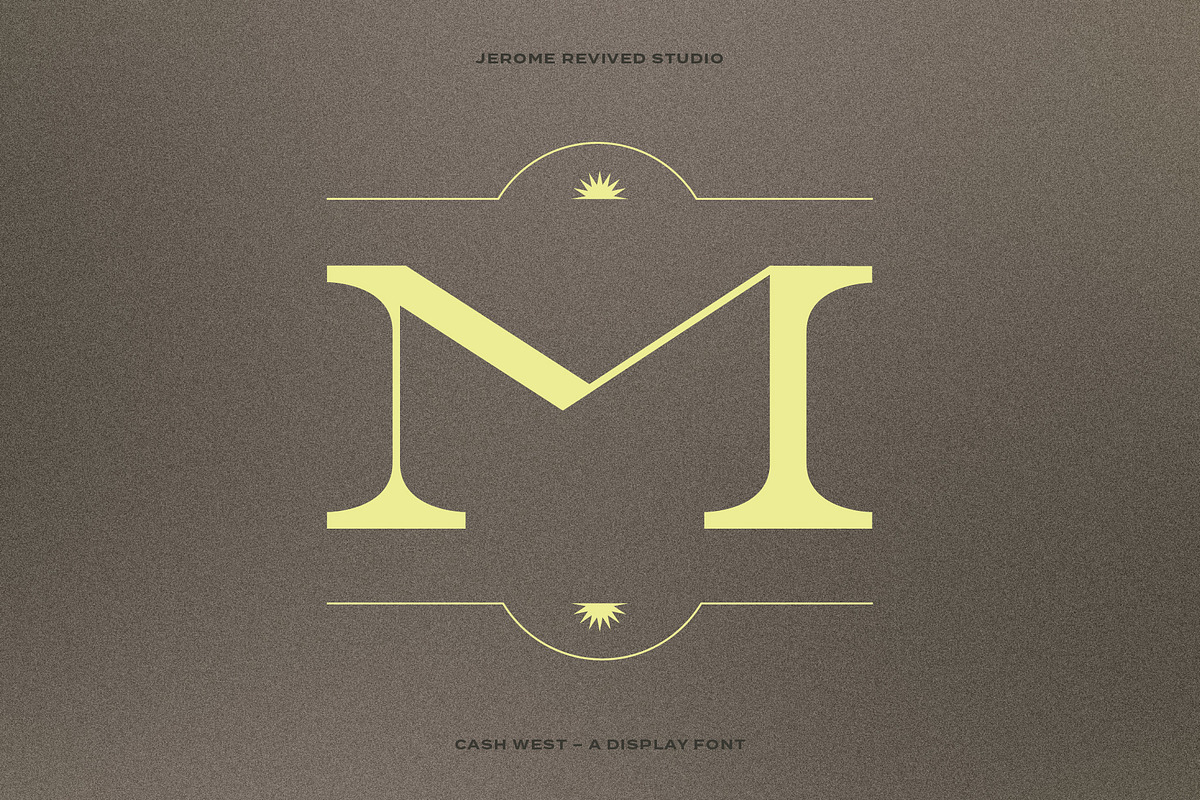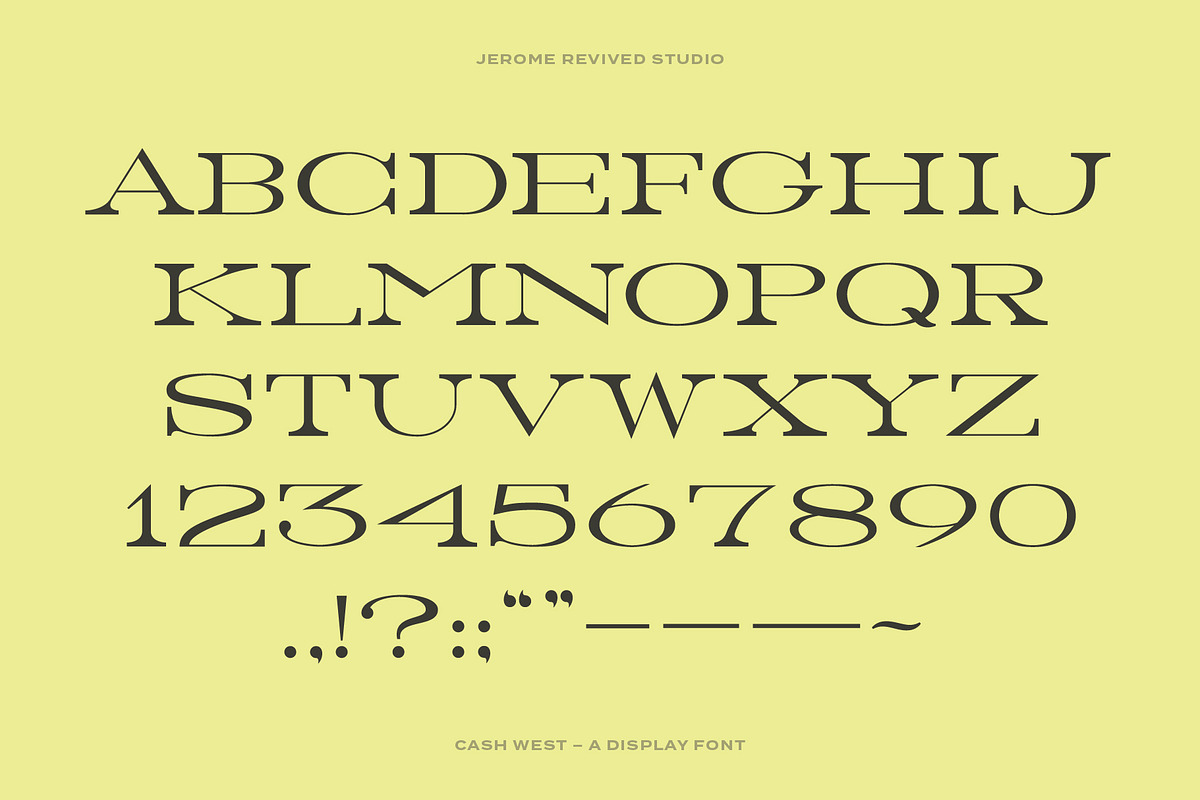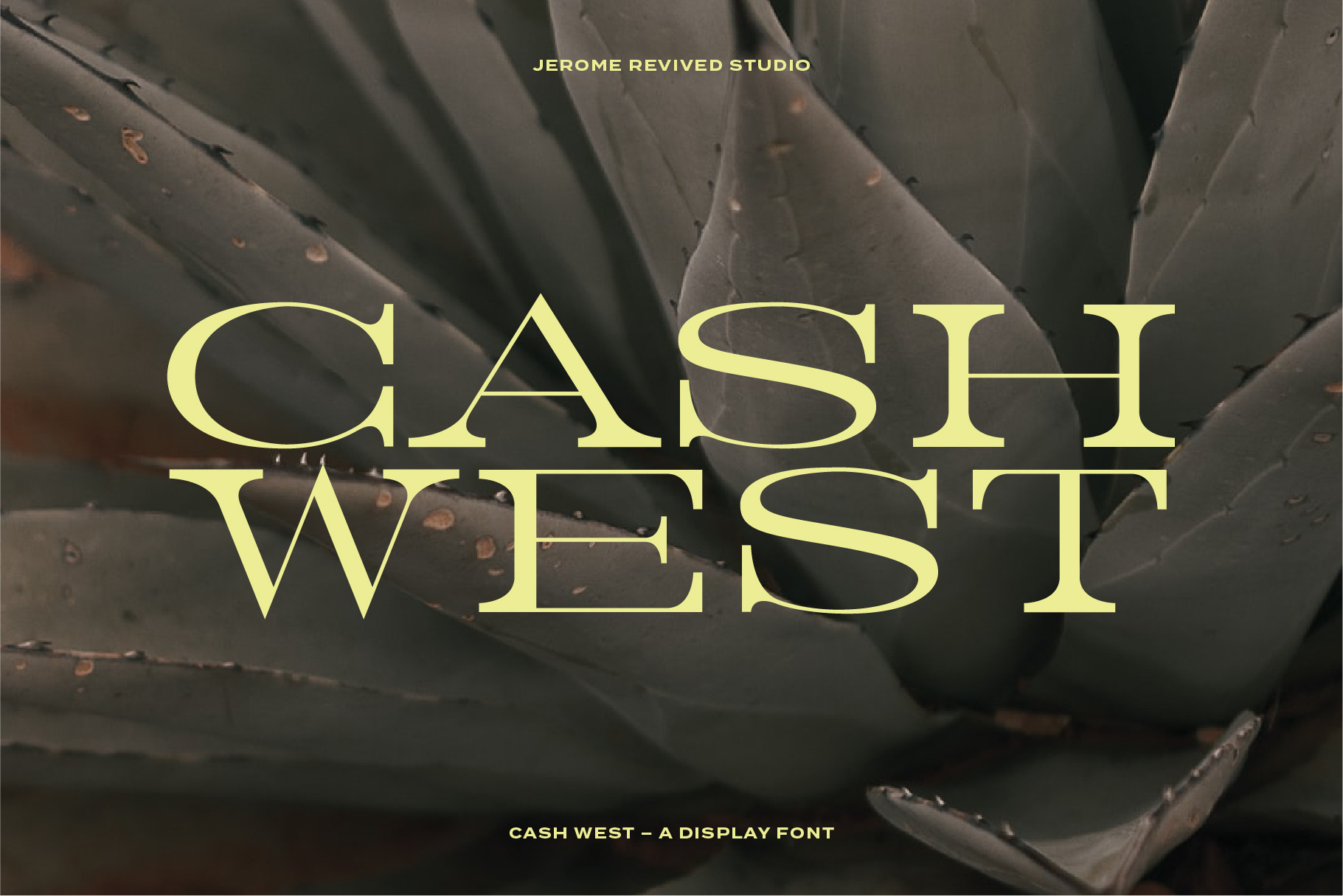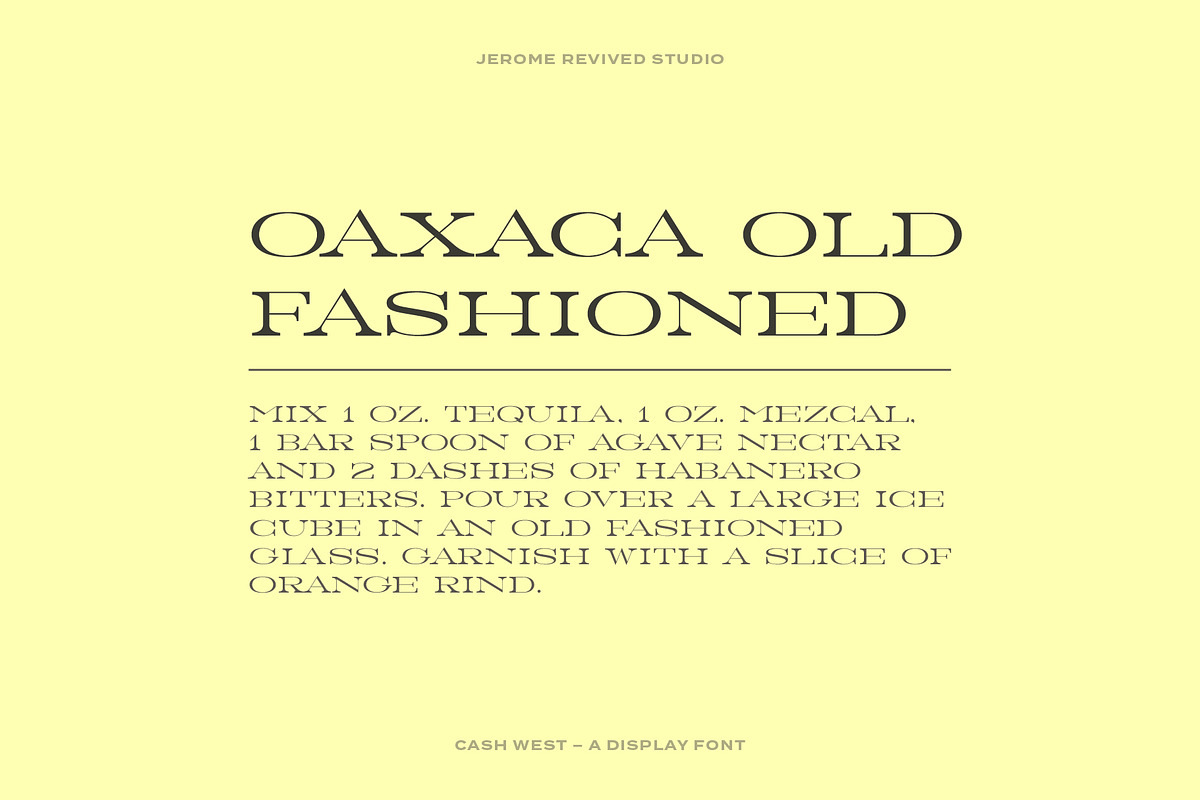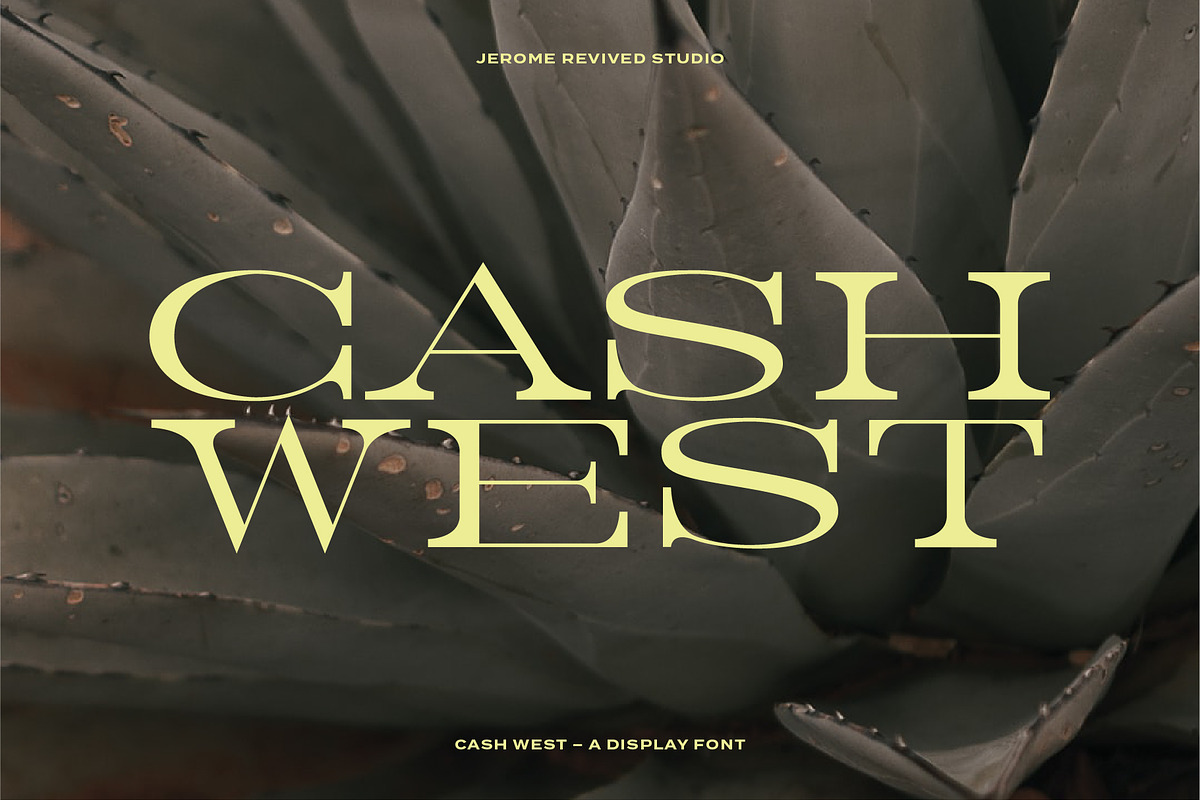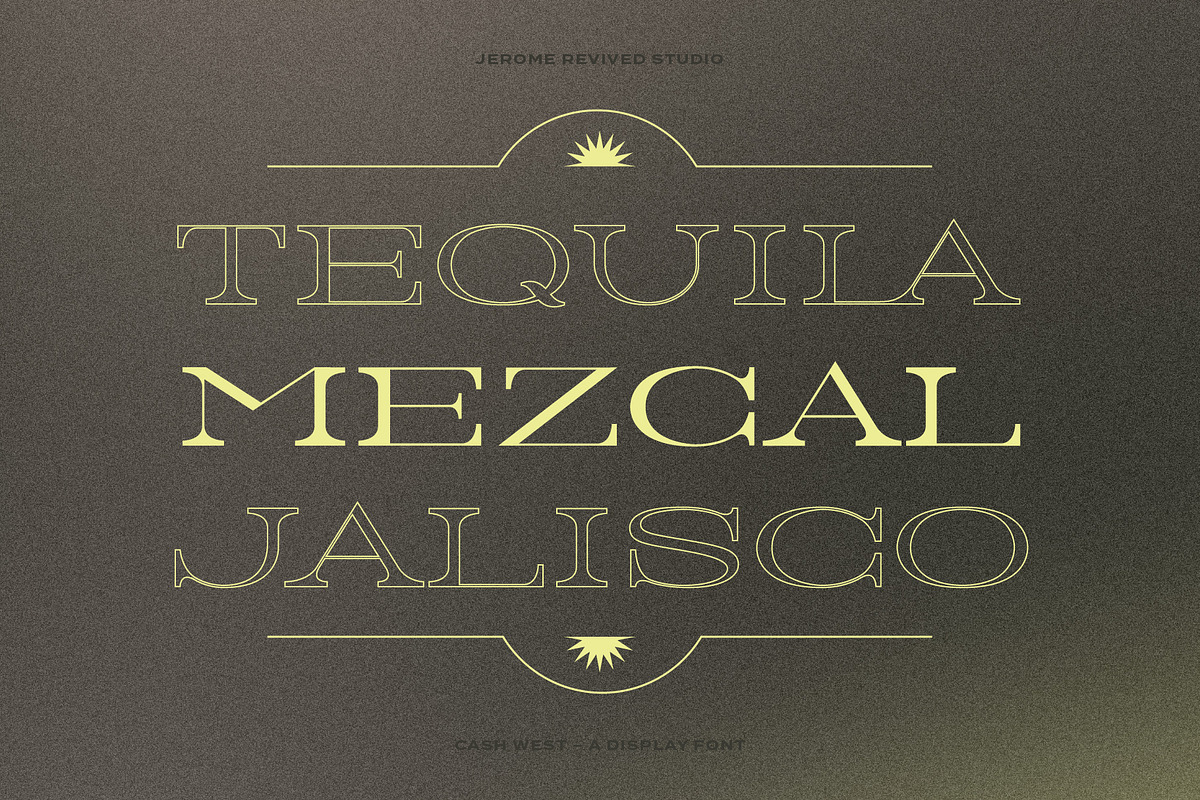
Cash West Display Font
Cash West is a wide, high-contrast typeface with a heavy serif. Feels like the perfect font for a mezcal or tequila brand. Western inspired yet a bit more refined.
It has a limited character set of all uppercase lettering, numbers, limited punctuation, and a single weight. If the font is expanded upon in the future, you'll have access to a free update!